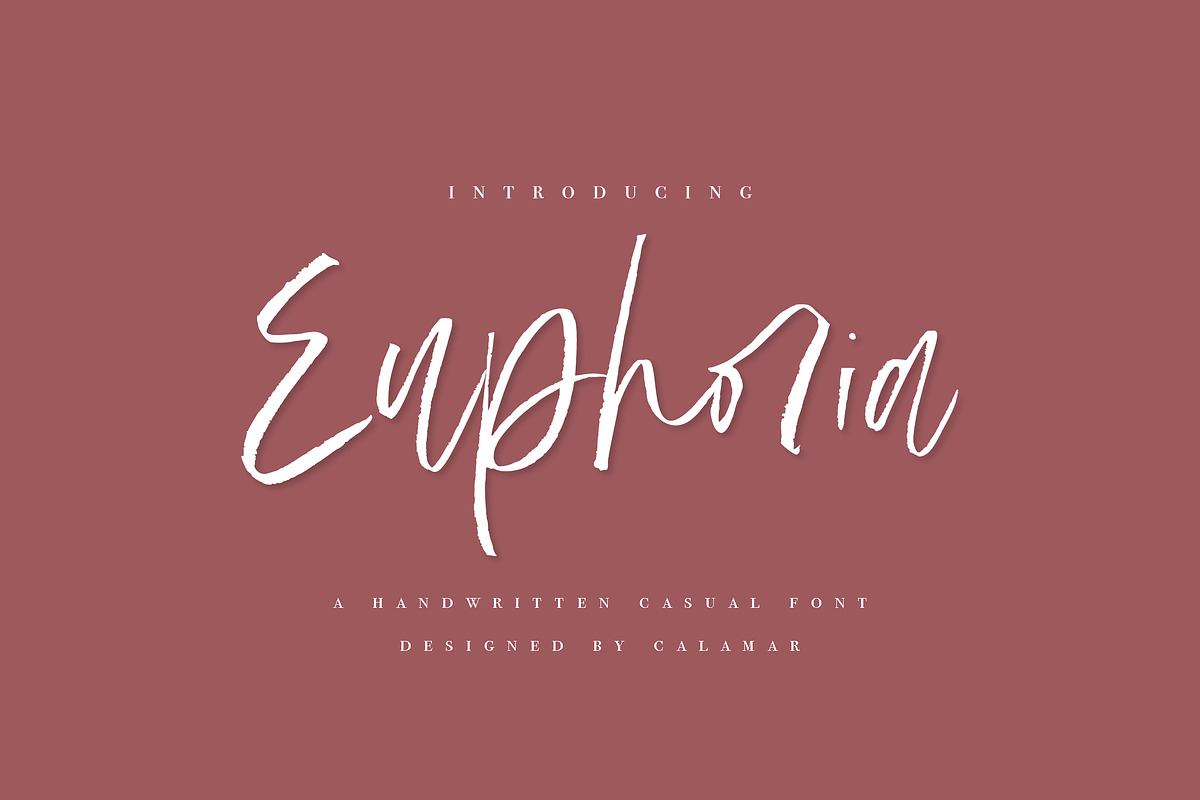
Euphoria | Handwritten Font Free Download
Euphoria | Handwritten Font Free Download is a light, elegant, and expressive typeface that captures the natural flow of handwriting with a modern twist. With its soft curves and stylish rhythm, Euphoria is perfect for wedding invitations, lifestyle branding, personal blogs, Instagram quotes, and heartfelt stationery.
Carefully crafted to reflect authentic hand lettering, Euphoria | Handwritten Font Free Download features smooth ligatures and graceful strokes that add a touch of romance and personality to any project. Whether you’re working on a logo or crafting meaningful messages, this font brings charm and sophistication in equal measure.